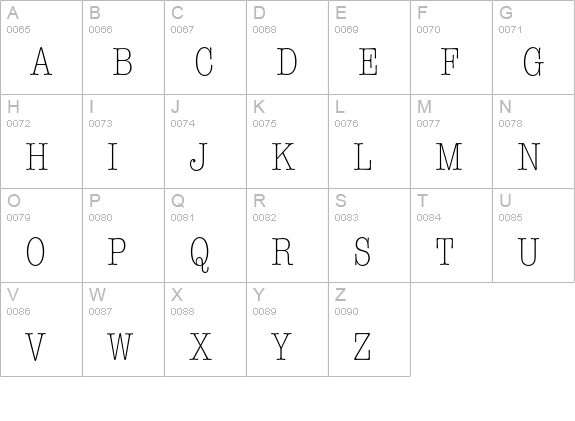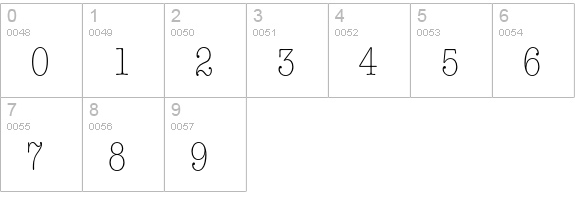
AmTypewriterEF-LightCond Font Details
AmTypewriterEF-LightCond is a sleek and modern typewriter-style font that combines classic elements with a contemporary twist. This font features a light condensed weight, making it perfect for adding a touch of sophistication to your designs. With its clean lines and versatile appearance, AmTypewriterEF-LightCond is ideal for a wide range of projects, from professional documents to creative branding. The best part? This stylish font is completely free to download at FontsMarket.com. Whether you're looking to enhance your website, create eye-catching marketing materials, or simply add a unique touch to your personal projects, AmTypewriterEF-LightCond is the perfect choice. Download this font today and elevate your designs with its timeless elegance and charm.